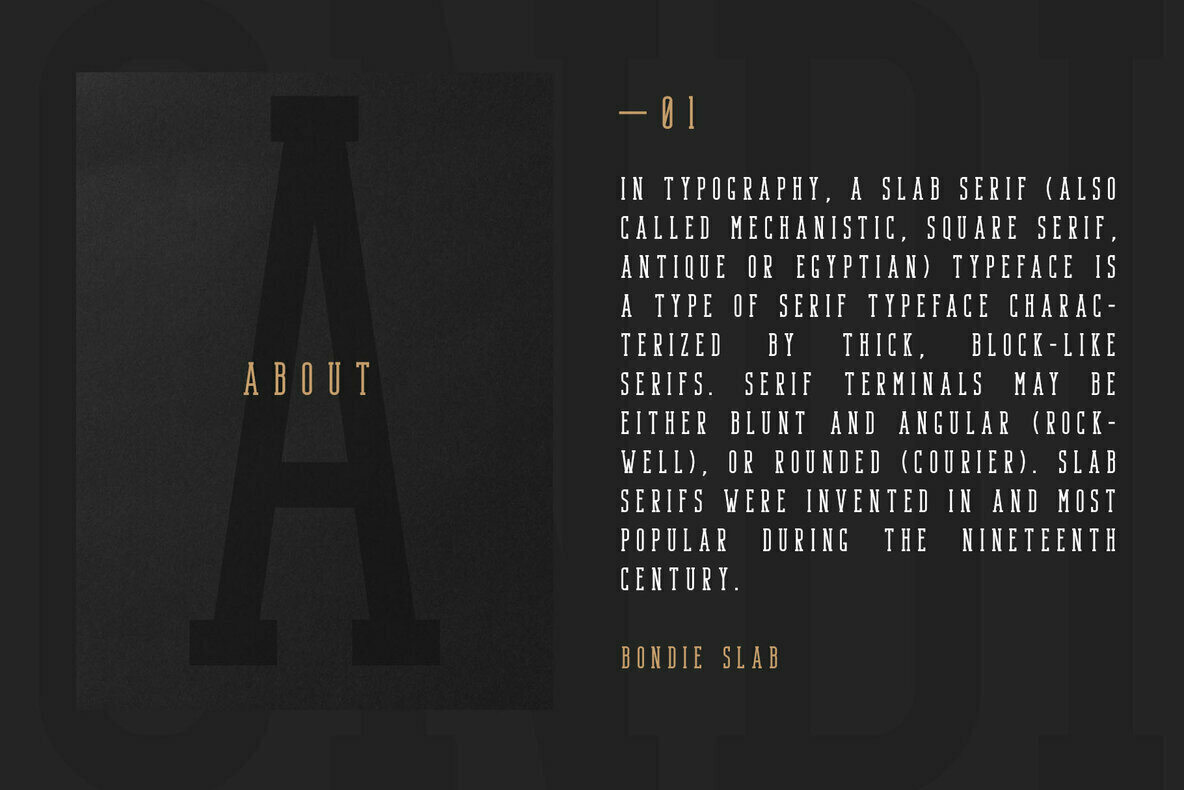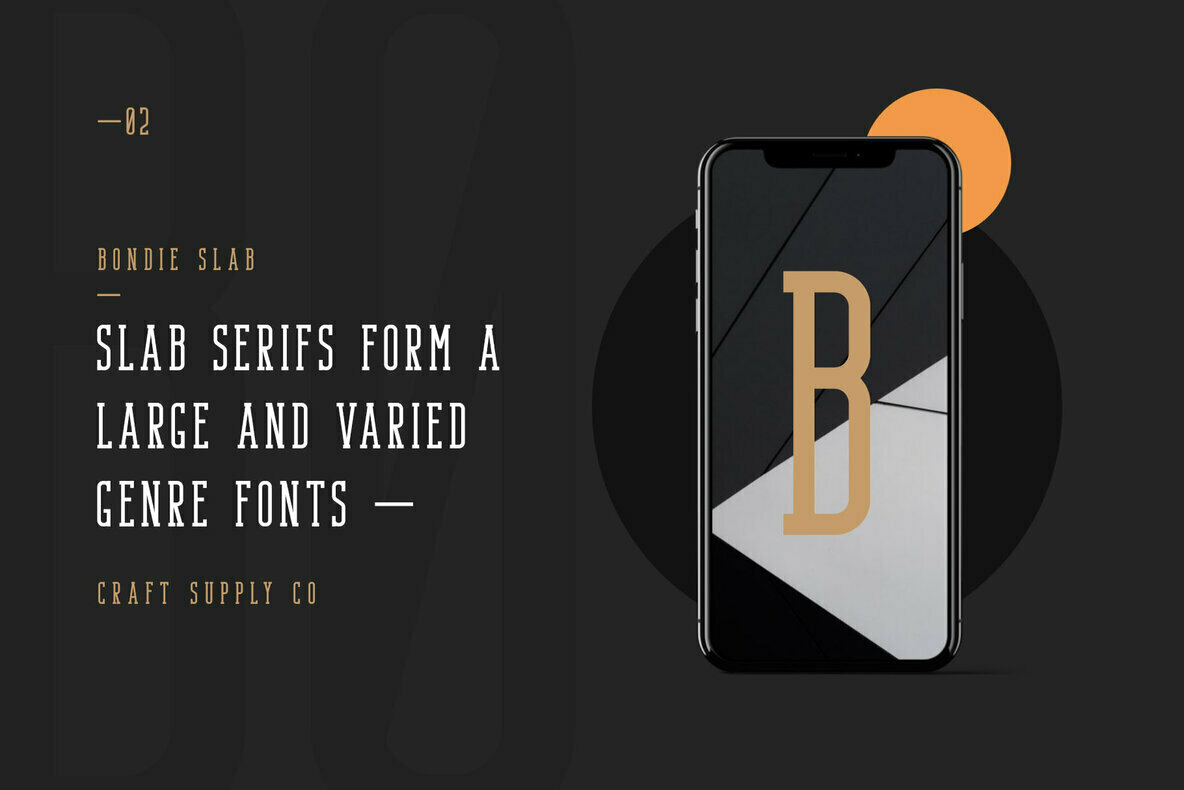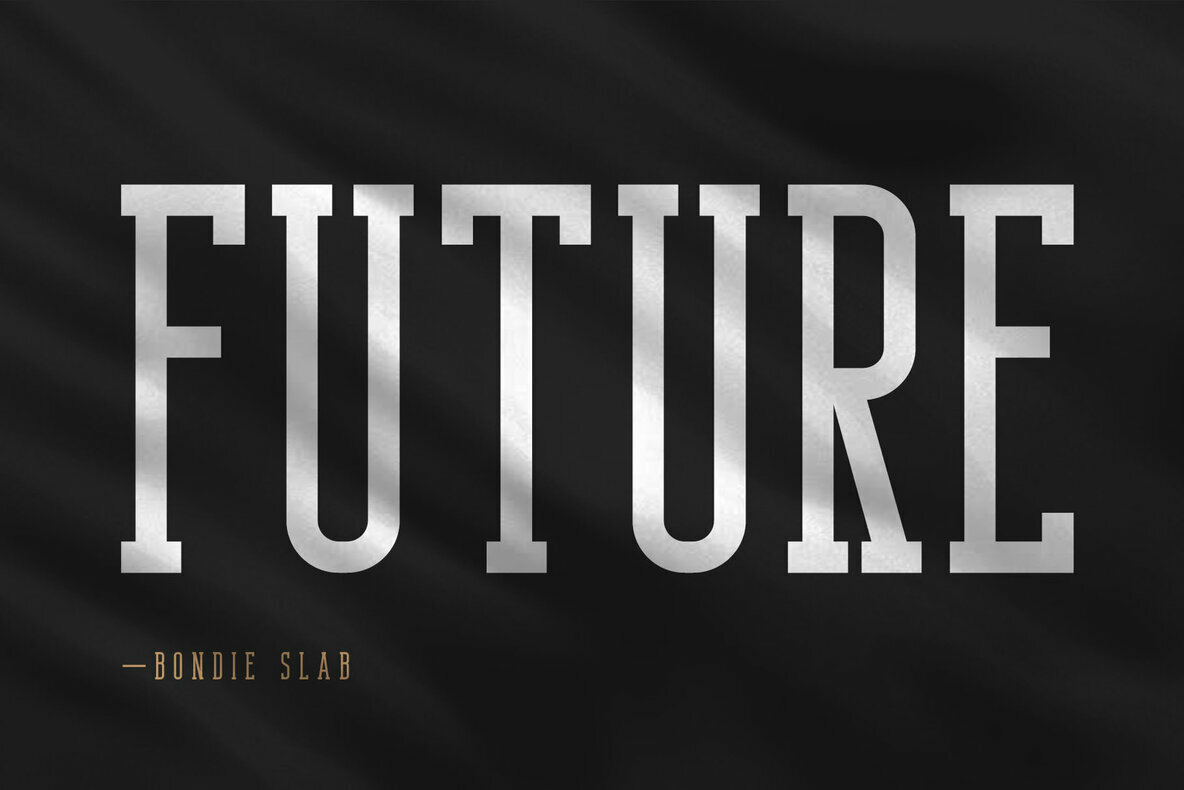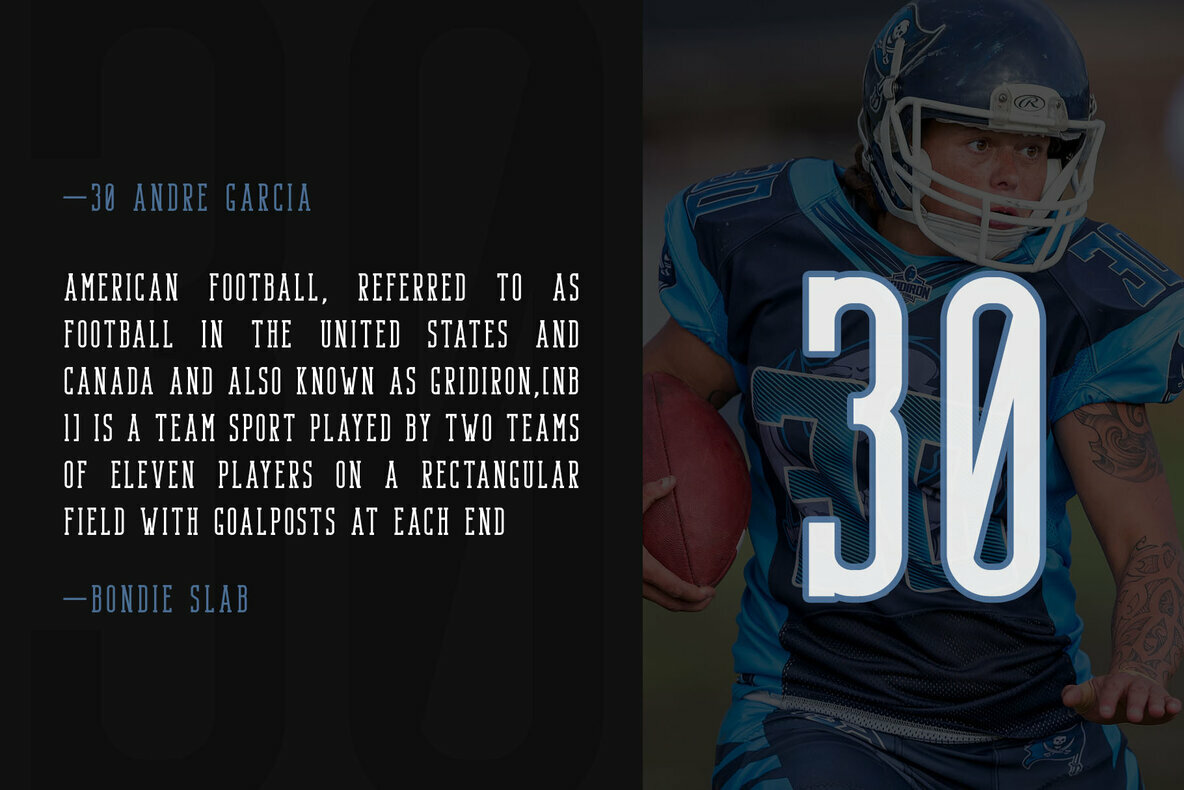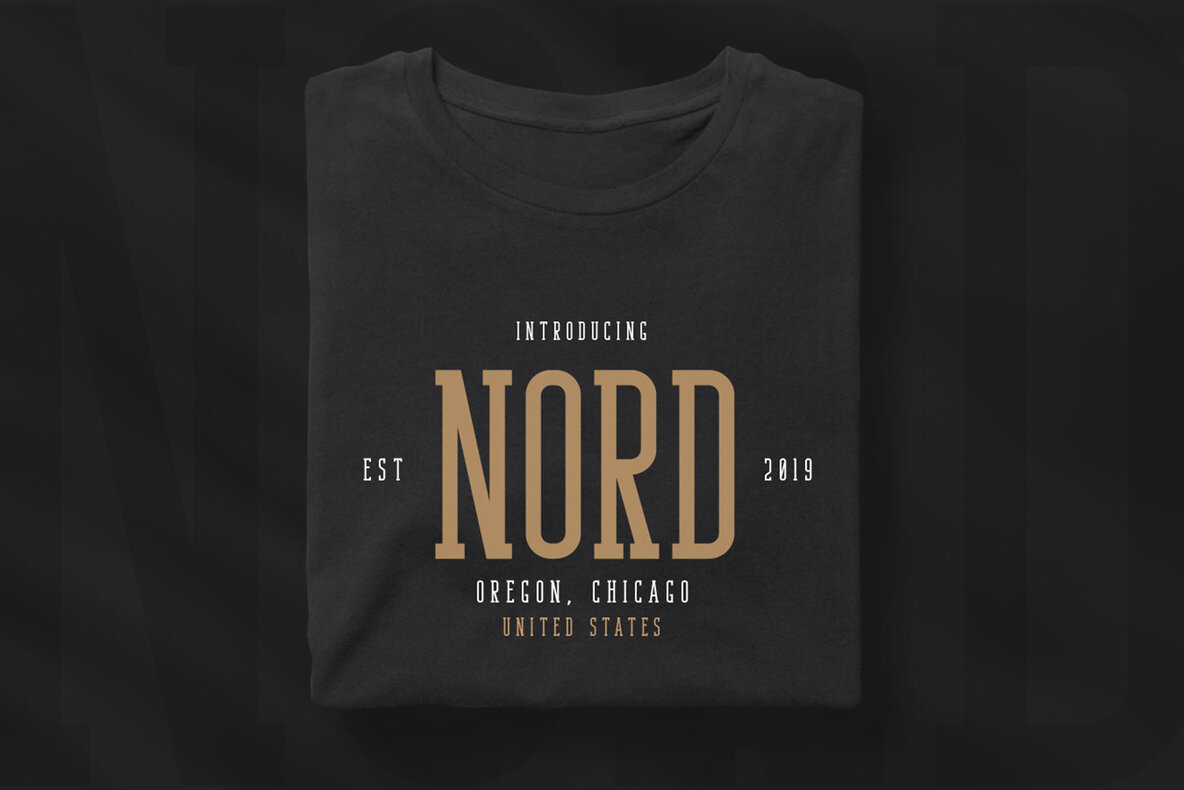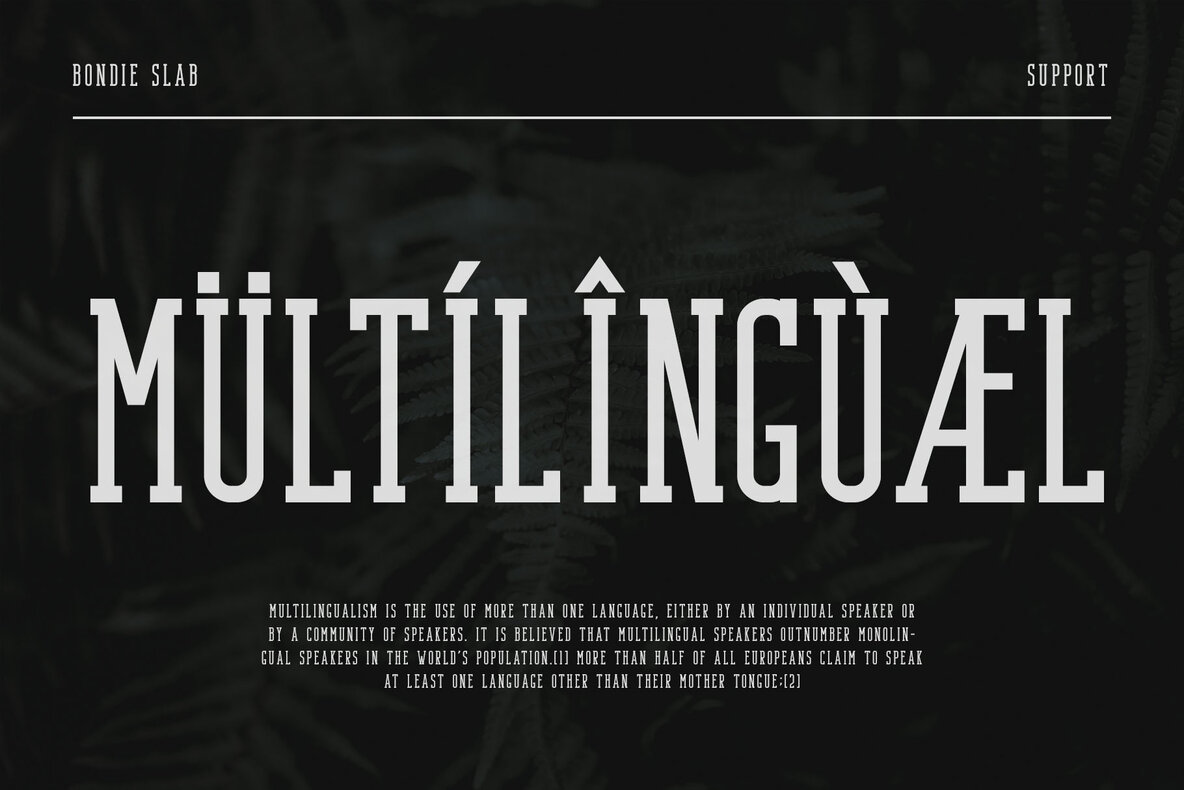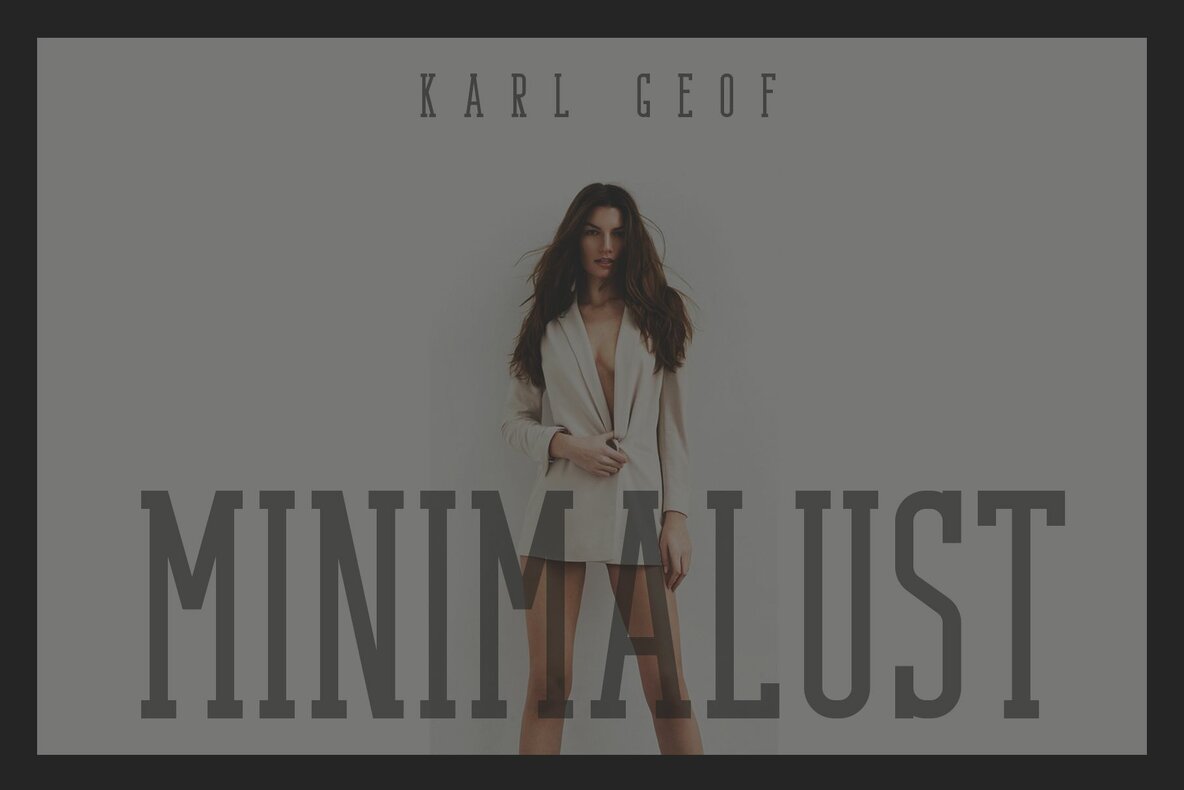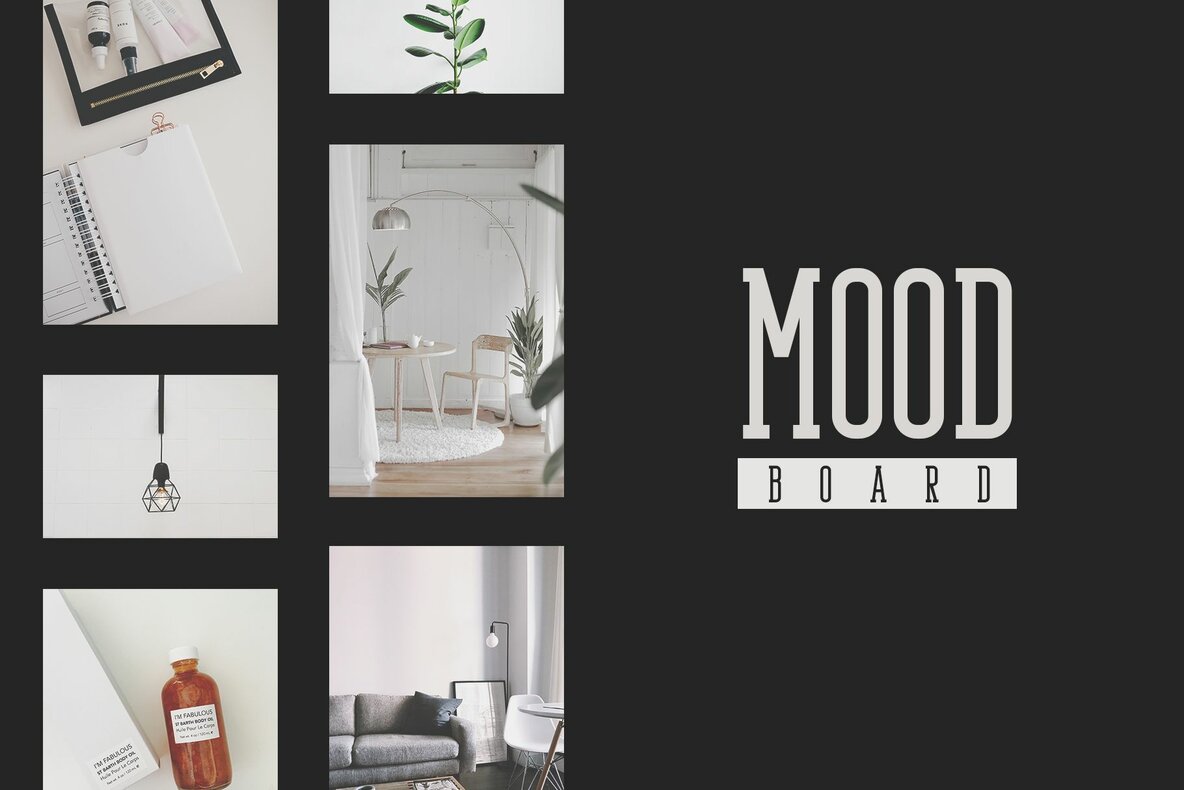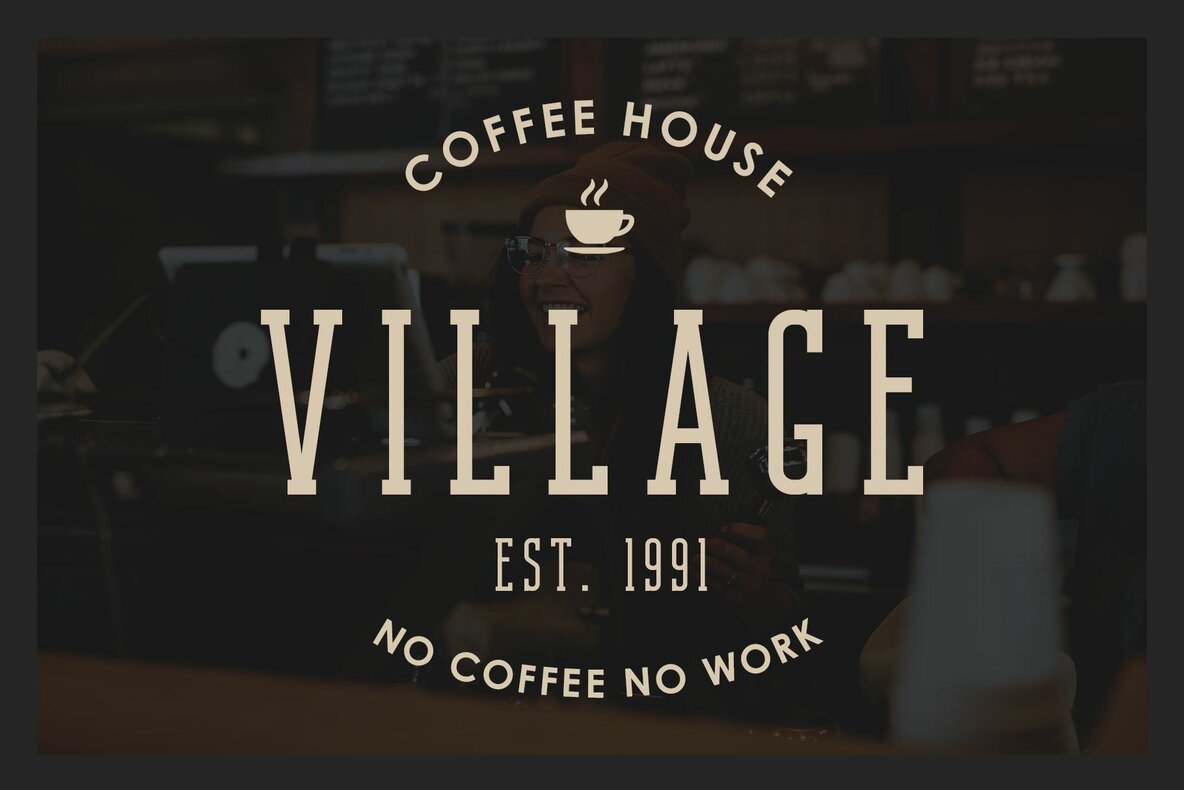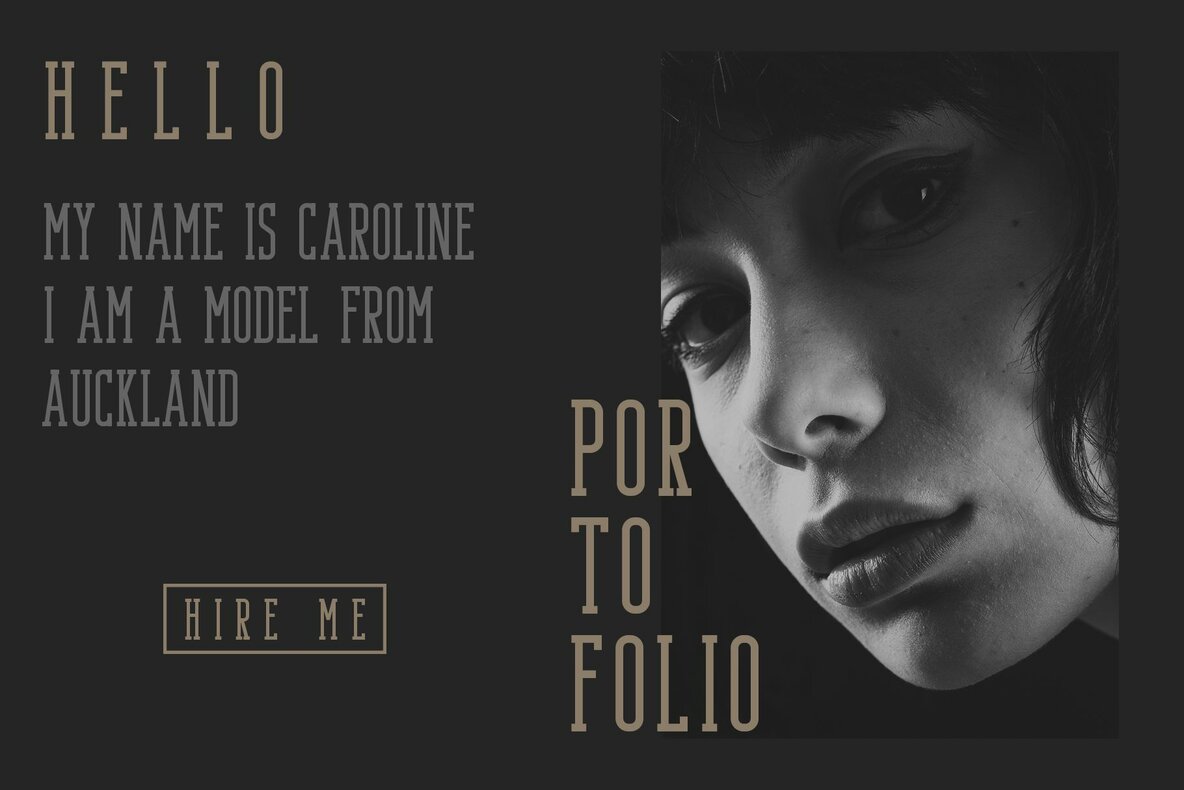
Bondie - Condensed Slab Serif Font
Bondie Slab Regular
The Bondie Condensed Slab Serif font by Craft Supply Co. presents an elegant blend of traditional and contemporary design, encapsulating the essence of versatility in a compact form. Created to complement a variety of styles, it is ideal for logos, greeting cards, quotes, posters, branding materials, and more. Its adaptability ensures it can serve both modern and vintage design needs, from blog headers to art quotes. Bondie also excels in lending a stylish touch to book designs, envelopes, and wedding stationery. Whether your project involves hand-drawn elements or a watercolor theme, this font will enhance the aesthetic, guaranteeing a trendy and appealing final product. Perfect for any creative journey, Bondie is the desired choice when a distinctive yet classic look is paramount.Bondie: A Timeless Condensed Slab Serif